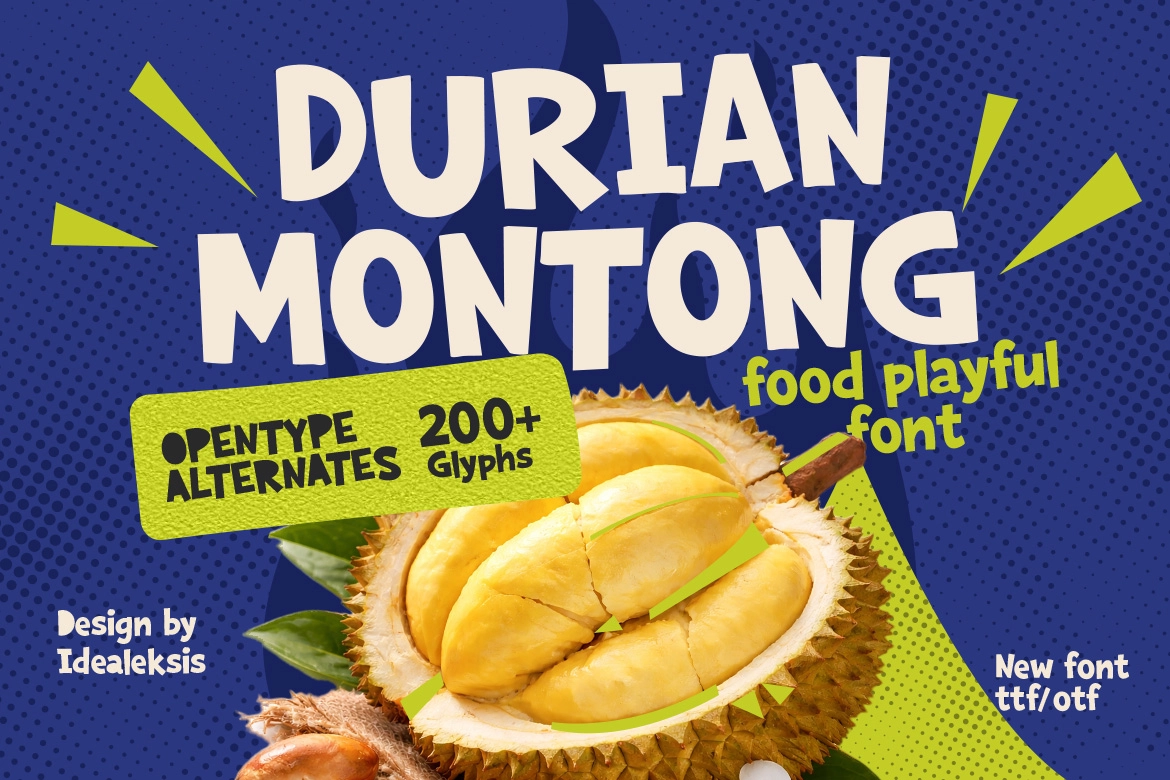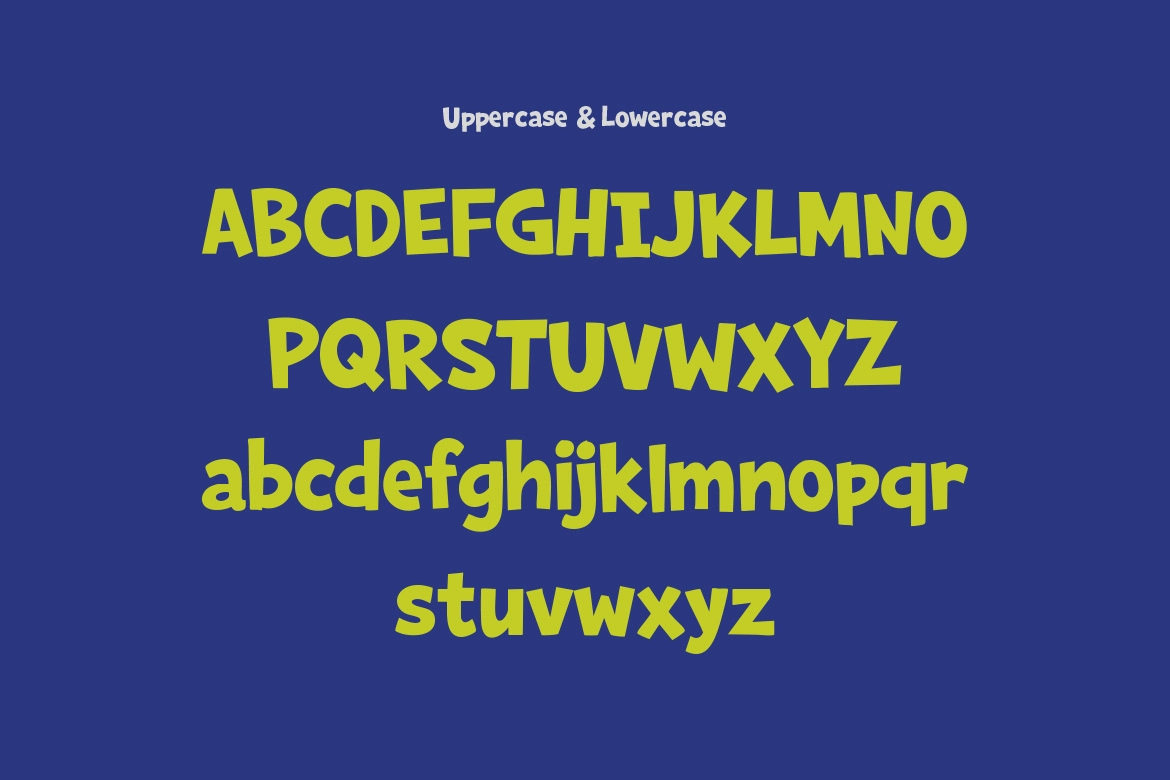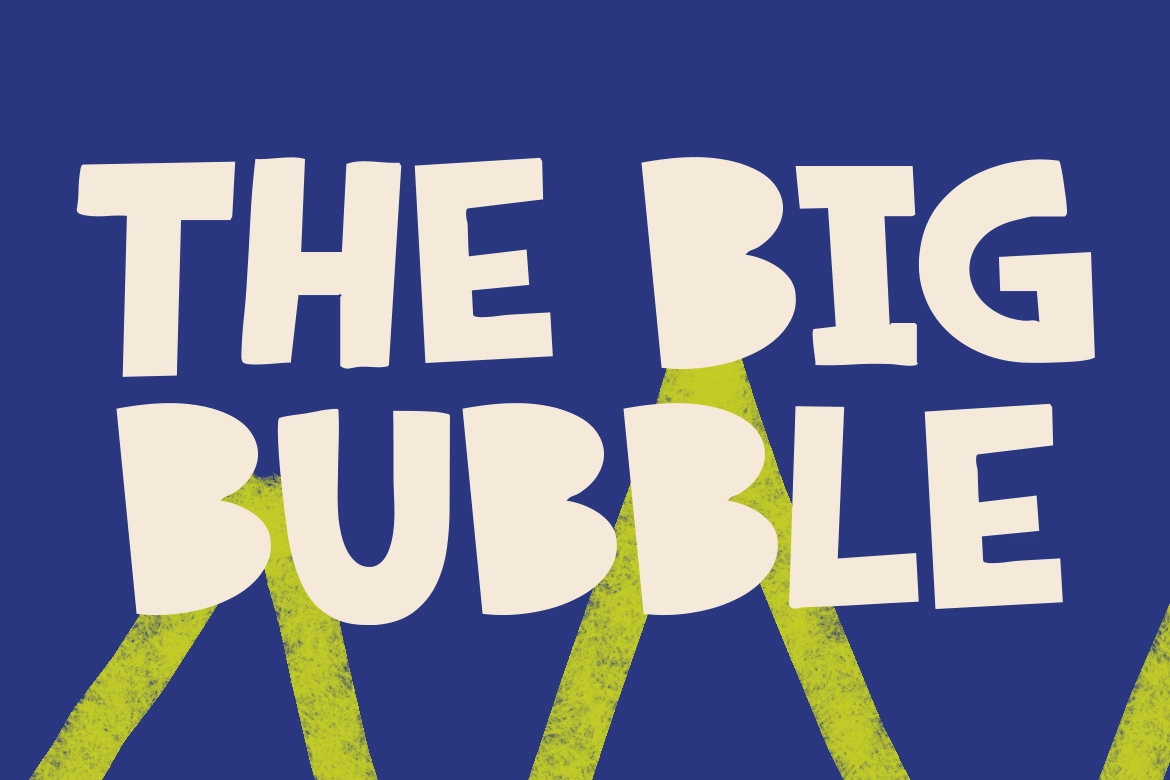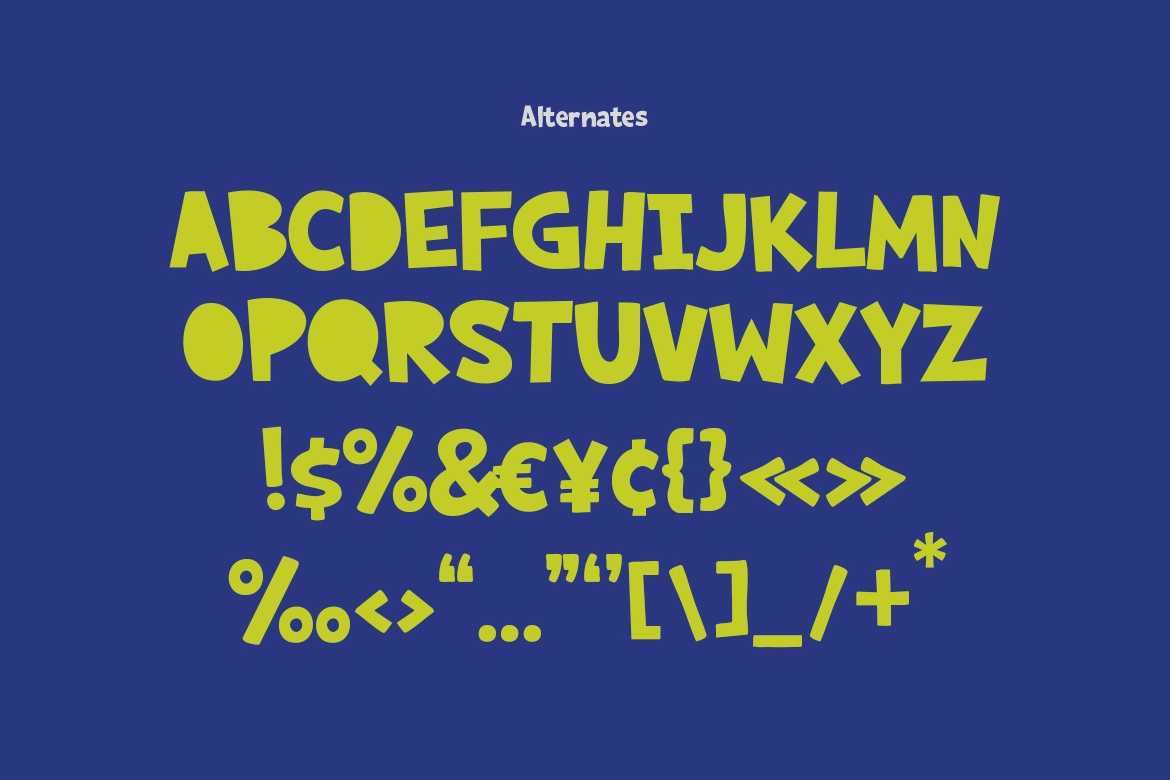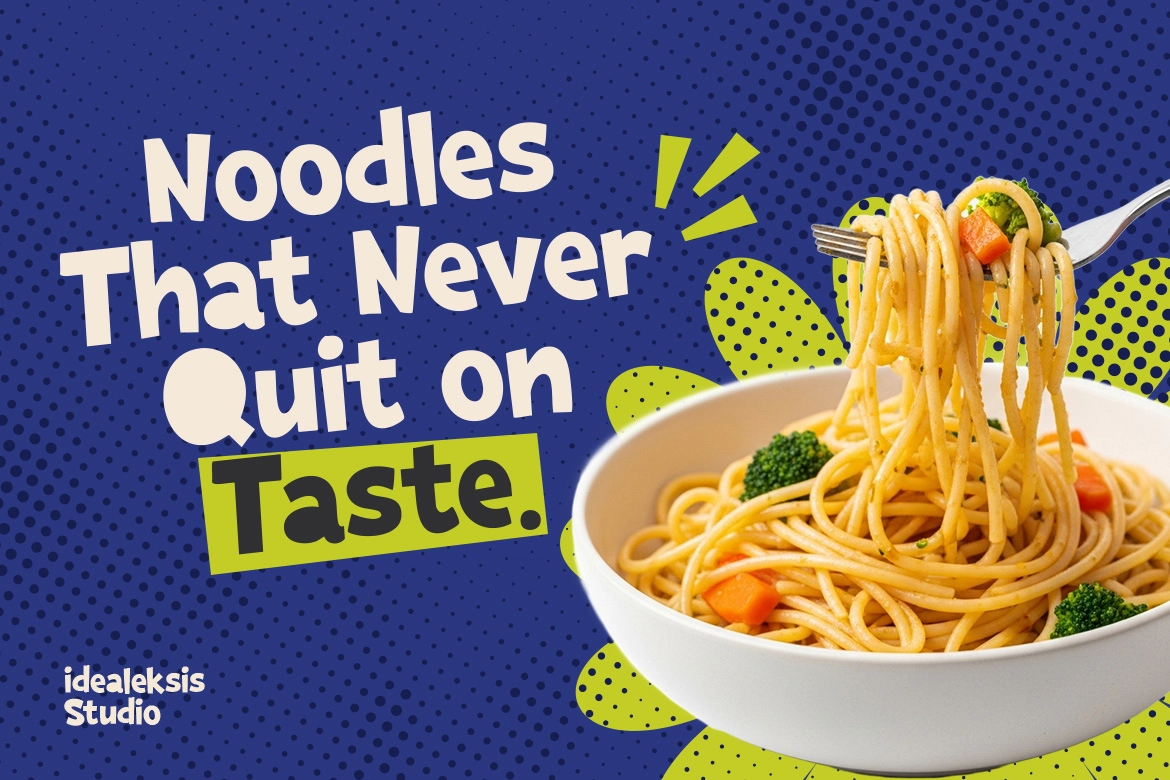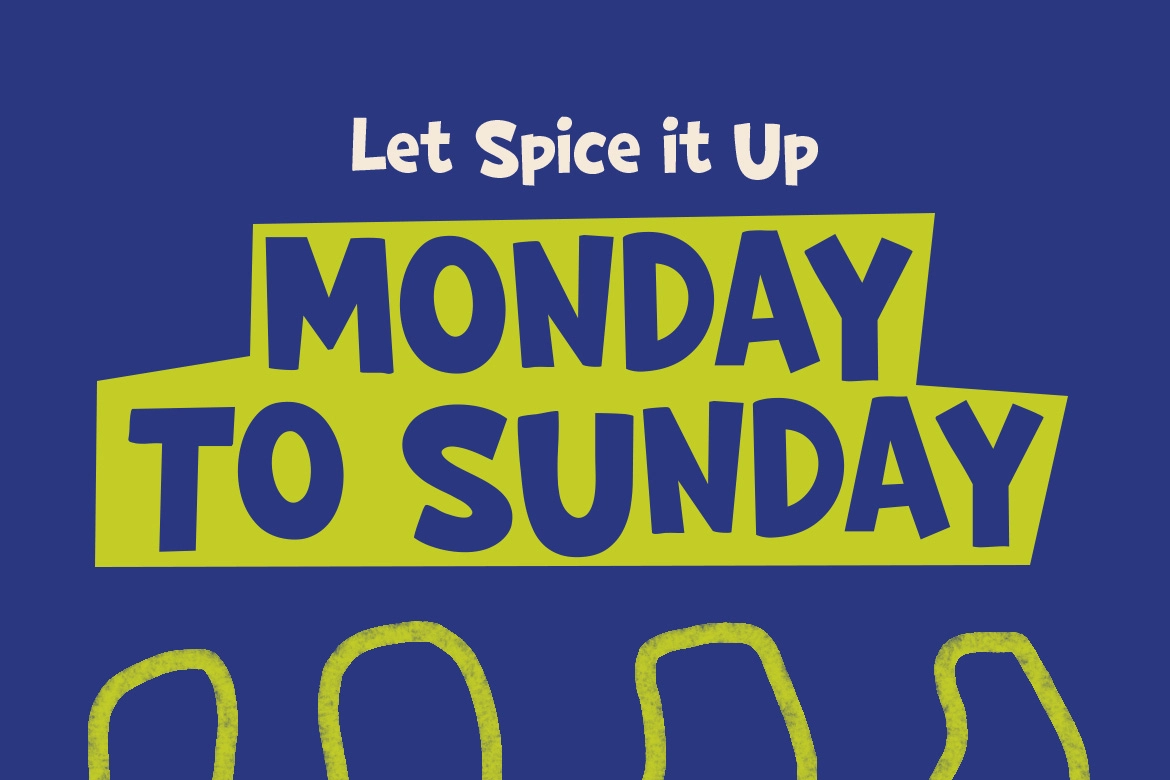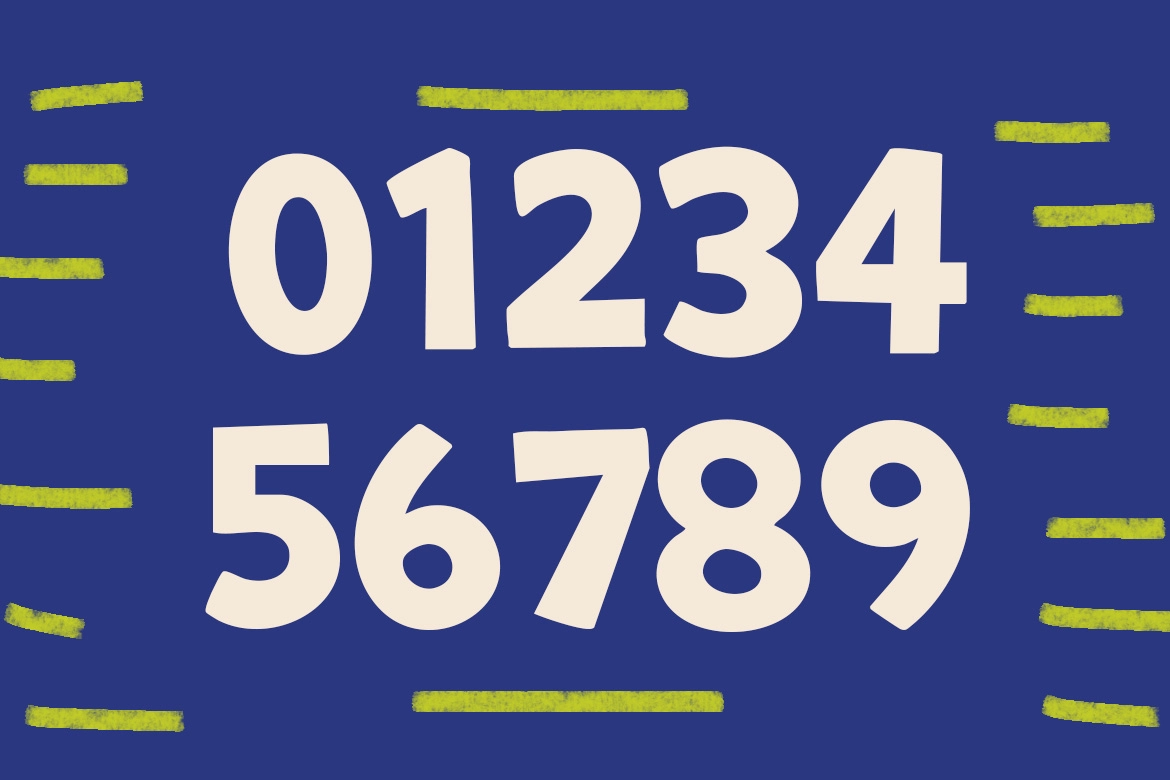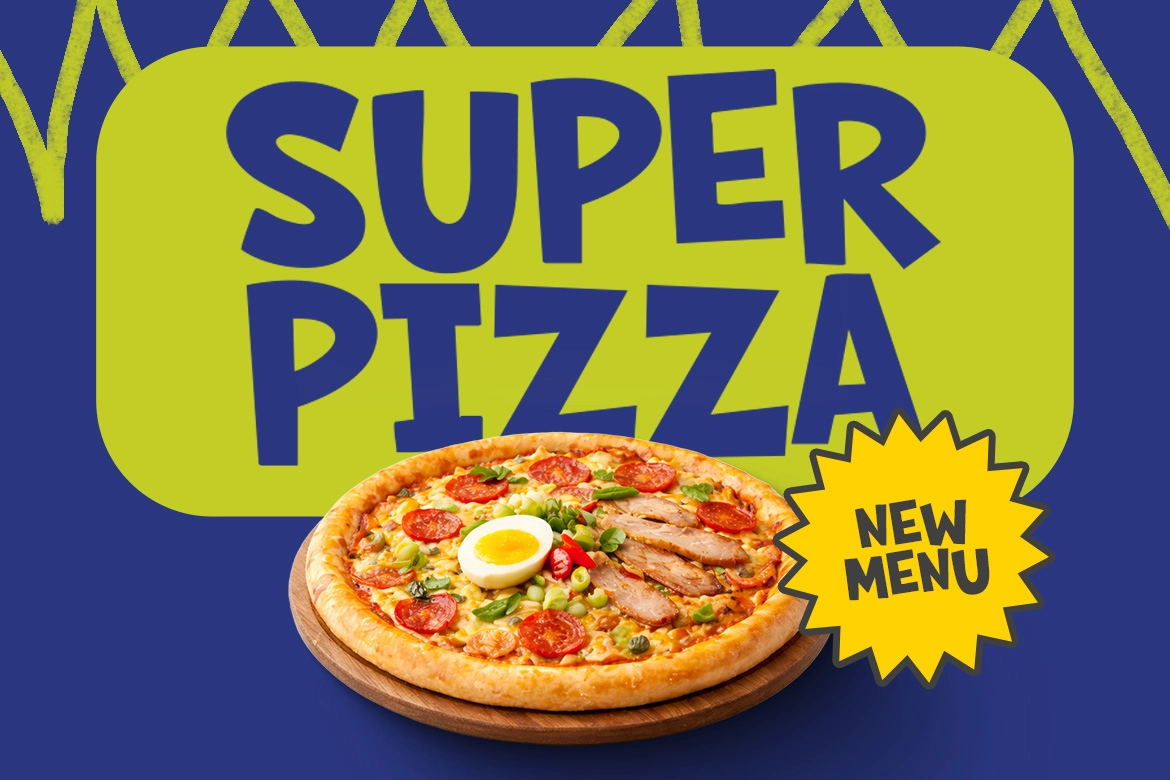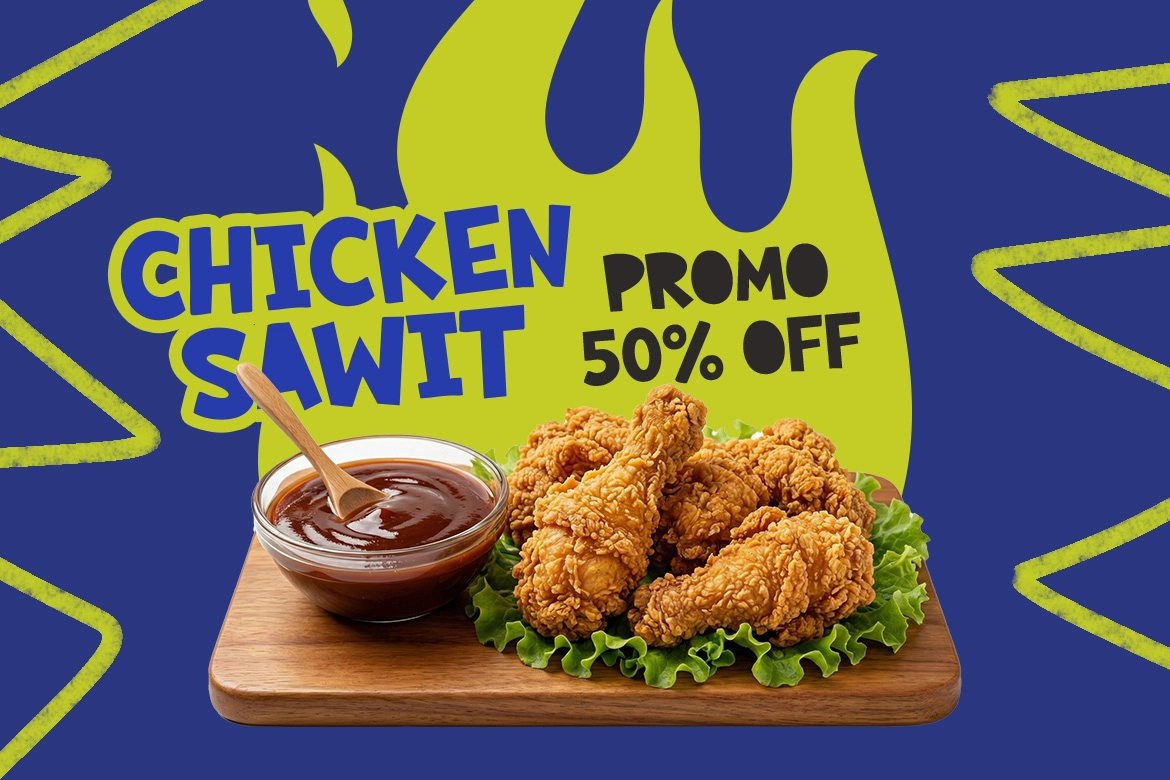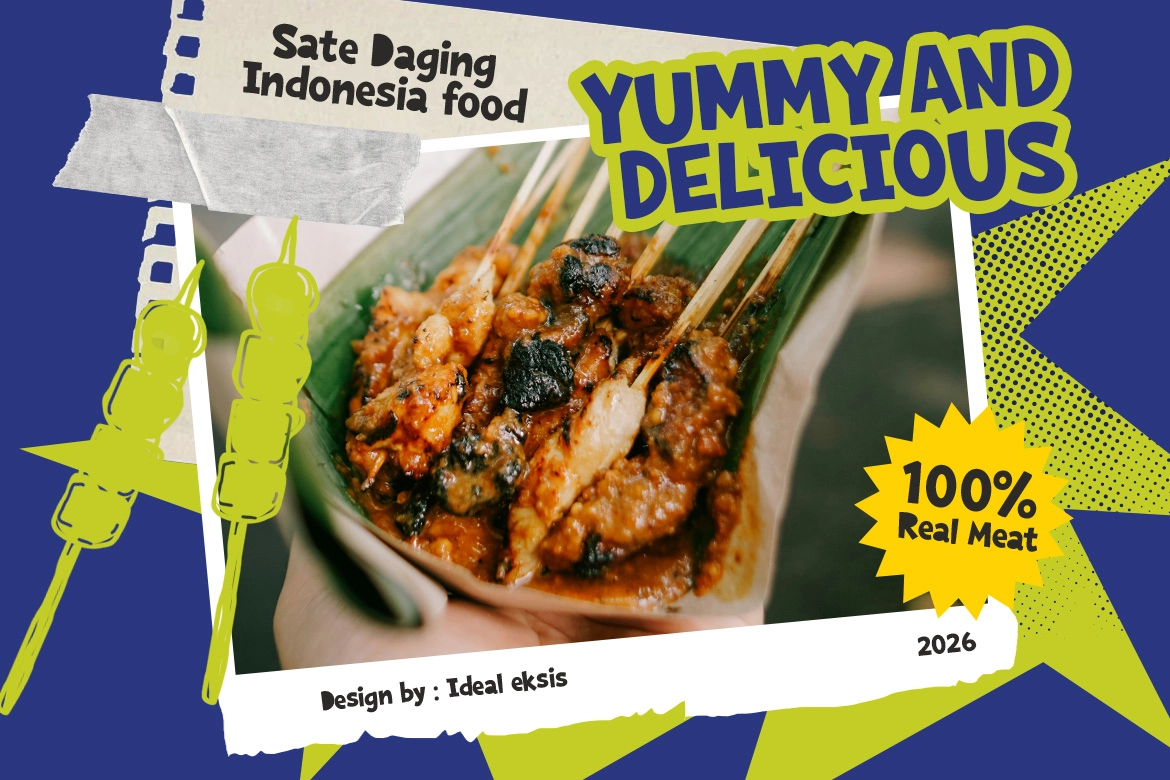
Durian Montong – Bold Playful Display Font
Durian Montong
Durian Montong – Bold Playful Display Font is a lively and expressive display font that brings a bold, handcrafted feel to your designs. Its chunky, irregular letterforms and soft rounded edges create a playful personality, while the dynamic rhythm and slightly uneven baseline add a sense of movement and spontaneity—perfect for eye-catching compositions.
Designed to stand out, Durian Montong works beautifully across food branding, packaging, and promotional visuals. Whether you're creating vibrant posters, café identities, or social media content, this font delivers a fun and approachable tone that instantly grabs attention.